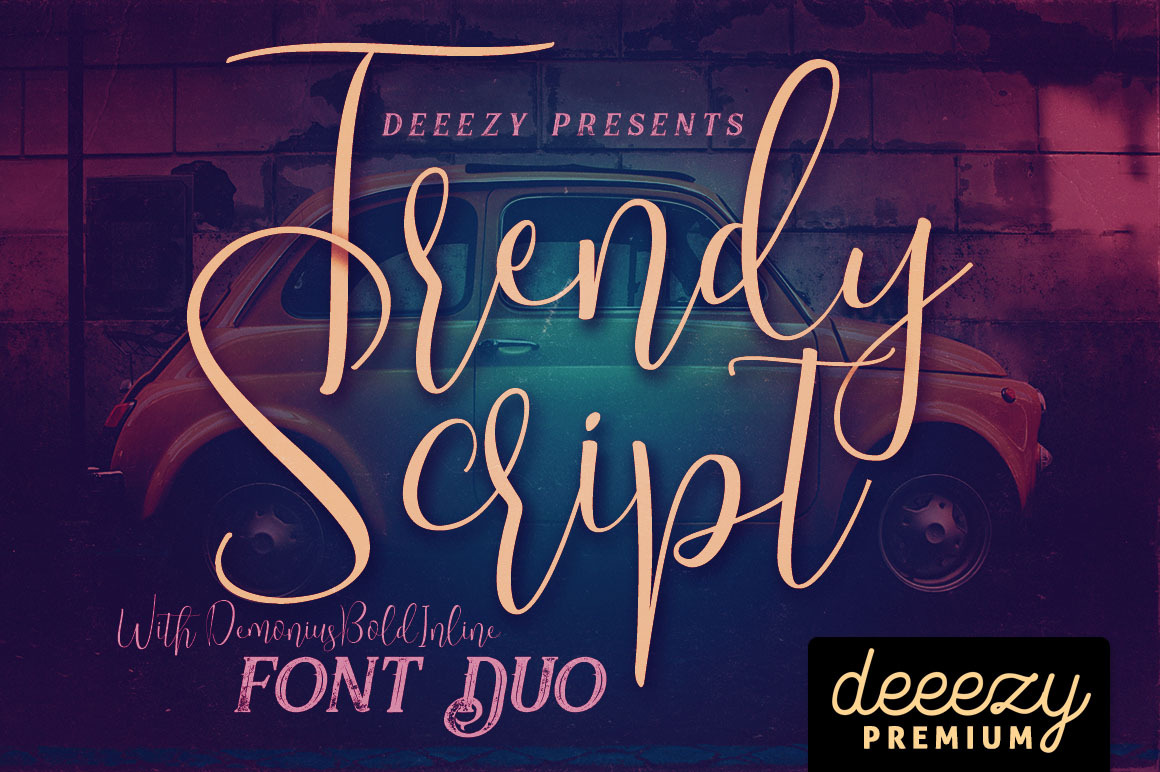
Trendy Script Font Duo
Cool creative style font duo for your new projects. First font is modern, thin & unique style handwritten script font with multi language support and lot of stylistic alternates + swash font. Second font is bold display font with regular & grunge version (without multi language support).